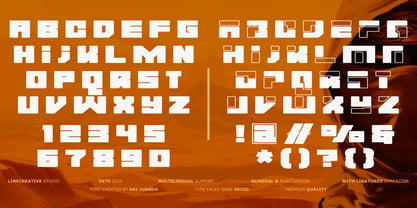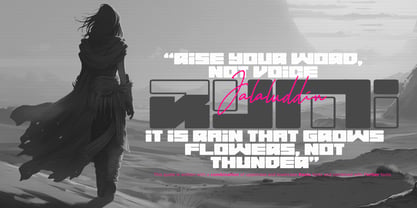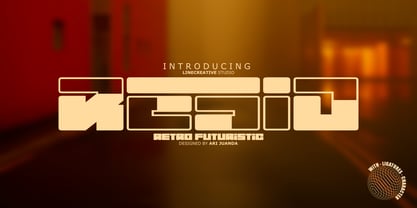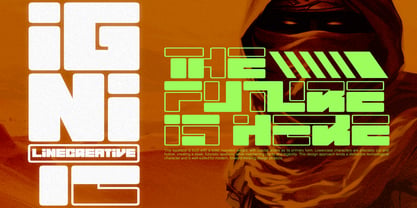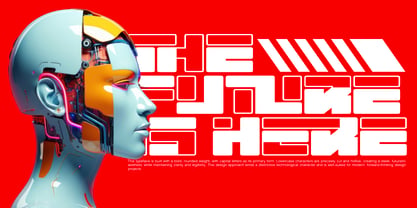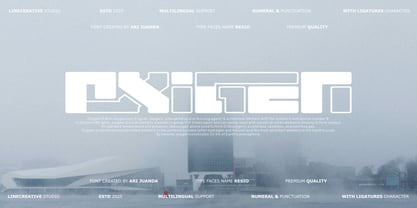
Resio
by Linecreative
Introducing the Resio font, this typeface is built with bold, rounded weights, with capital letters as its primary form. Lowercase characters are precisely cut and hollow, creating a sleek, futuristic aesthetic while maintaining clarity and legibility. This design approach gives it a distinctive technological character and is well-suited for modern, forward-thinking design projects.
Designers: Ari Juanda
Foundry: Linecreative